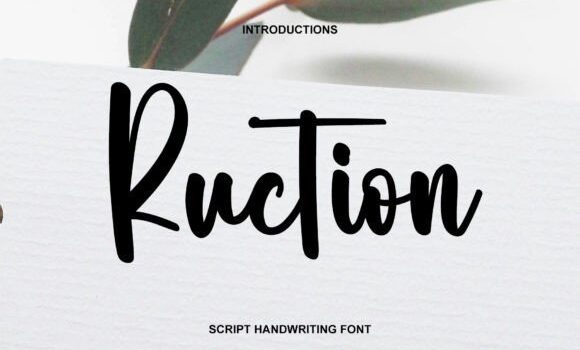
ruction
Ruction Font - Featured Image
Ruction Font – Free Download Introduction to Ruction Font Ruction is a stylish handwritten font with a contemporary atmosphere and impeccable form, inspired by timeless classic calligraphy. 📸 Preview Gallery 6 images 📌 Product Name Ruction Font 👤 Author YanStudio